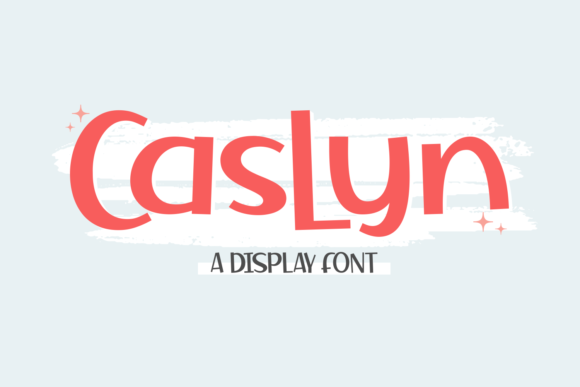
Introduction to Caslyn Font
Caslyn is a playful and fun display font with bold characters and a friendly, inviting appearance.
It works great on big text, headlines, covers, posters, banners, and more .